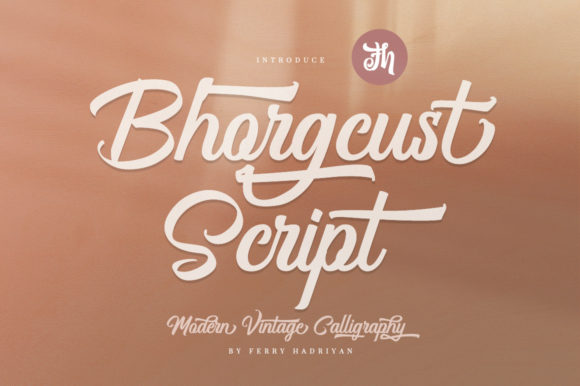
Introducing Bhorgcust, a stunning and audacious handwritten font, meticulously designed to inject a touch of elegance and individuality into your creative projects. Inspired by the allure of vintage signage and the charm of handwritten notes, Bhorgcust is your gateway to creating captivating headlines, logos, branding materials, and social media graphics that leave a lasting impression.
With its bold strokes and confident curves, Bhorgcust exudes strength, confidence, and dynamism. Its nostalgic charm adds a touch of authenticity and personality to your designs, evoking a sense of longing for simpler times. Whether you're a seasoned designer or just starting your creative journey, Bhorgcust is the perfect font to add a unique and eye-catching element to your work.
Embark on a journey of creativity with Bhorgcust, transforming your words into artistic masterpieces. Its versatility shines through its ability to adapt seamlessly to a wide range of projects, from personal branding and wedding invitations to product packaging and social media campaigns. Unleash your imagination and watch as Bhorgcust brings your designs to life, captivating your audience with its timeless beauty.
Dive into a world of endless possibilities with Bhorgcust, where your creativity knows no bounds. Experience the joy of crafting logos that stand out, headlines that demand attention, and social media graphics that ignite engagement. Let Bhorgcust be your secret weapon in creating designs that resonate with your audience, leaving them in awe of your artistic prowess.
Don't settle for ordinary. Embrace the extraordinary with Bhorgcust, the font that transforms the mundane into the magnificent. It's not just a font; it's an investment in your creative future. Join the ranks of inspired designers who have discovered the power of Bhorgcust and unlock the door to a world of captivating designs.